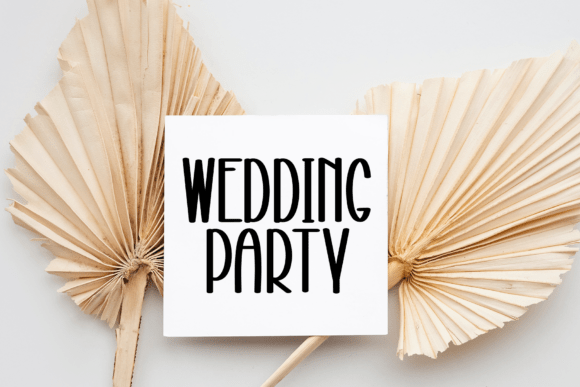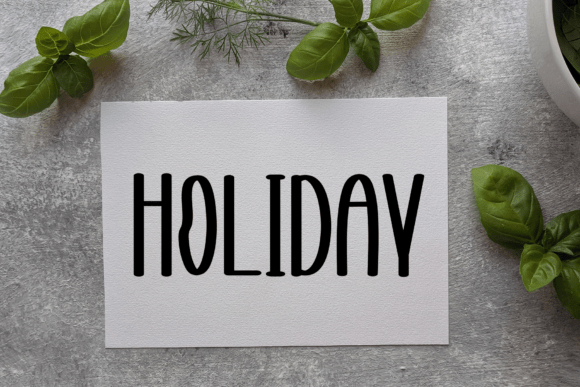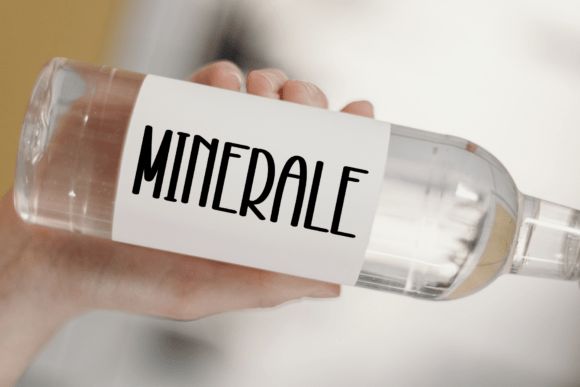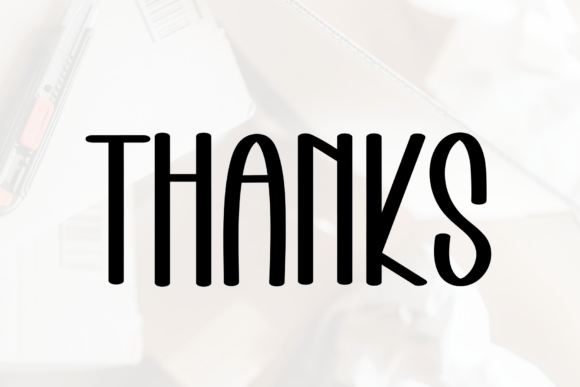
Introducing Heirloom Font: A Charming Handwritten Delight
In the world of typography, few fonts manage to capture the essence of warmth and personality as effectively as Heirloom Font. This charming handwritten font is filled with a sense of heartfelt perfection, making it an ideal choice for designers and crafters looking to add a touch of elegance and sophistication to their projects. With its smooth strokes and organic lines, Heirloom Font evokes a relaxed atmosphere, perfect for a variety of design applications.
The Characteristics of Heirloom Font
Heirloom Font is a beautifully crafted handwritten font that boasts a range of distinctive characteristics. Its smooth, flowing strokes and organic lines give it a natural, effortless feel that is both soothing and inviting. The font’s charming imperfections and subtle variations in line width add to its unique charm, making it perfect for designs that require a personal touch.
Heirloom Font’s versatility makes it an excellent choice for a wide range of design projects. Whether you’re working on a branding campaign, creating invitations, or designing social media graphics, this font is sure to impress. Its elegant, refined appearance makes it perfect for:
- Branding: Use Heirloom Font to create a lasting impression with your brand’s identity. Its unique charm and character will help your brand stand out from the crowd.
- Invitations: Add a touch of warmth and personality to your invitations with Heirloom Font. Perfect for weddings, baby showers, and other special occasions.
- Social Media Graphics: Elevate your social media presence with Heirloom Font. Create stunning graphics that will capture your audience’s attention and leave a lasting impression.
Why Designers and Crafters Love Heirloom Font
Heirloom Font has quickly become a favorite among designers and crafters, and for good reason. Here are just a few reasons why:
- Unique Character: Heirloom Font’s distinctive charm and character set it apart from other fonts. Its smooth strokes and organic lines give it a one-of-a-kind appearance that’s sure to impress.
- Easy to Read: Despite its elegant appearance, Heirloom Font is surprisingly easy to read. Its clear, flowing lines make it perfect for body text and captions.
- Highly Versatile: Heirloom Font is incredibly versatile, making it suitable for a wide range of design projects and applications.
Tips for Using Heirloom Font Effectively
To get the most out of Heirloom Font, here are a few tips to keep in mind:
- Pair with Bold Fonts: Heirloom Font pairs beautifully with bold, sans-serif fonts. Try combining it with a font like Arial Black or Helvetica Bold for a striking contrast.
- Use for Headings and Titles: Heirloom Font’s elegant appearance makes it perfect for headings and titles. Use it to add a touch of sophistication to your designs.
- Experiment with Colors: Heirloom Font looks stunning in a range of colors. Experiment with different hues and shades to find the perfect combination for your design.
In conclusion, Heirloom Font is a charming handwritten font that is sure to capture your heart. Its smooth strokes, organic lines, and unique character make it perfect for a variety of design projects. Whether you’re a designer, crafter, or simply someone who appreciates beautiful typography, Heirloom Font is an excellent choice. So why wait? Discover the charm of Heirloom Font today and elevate your designs to new heights!